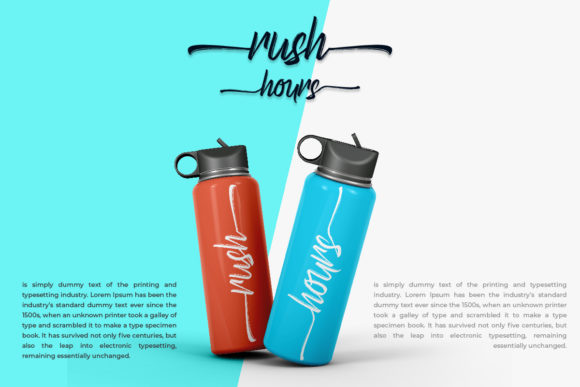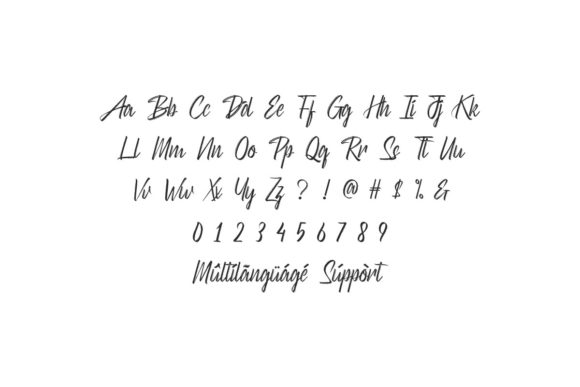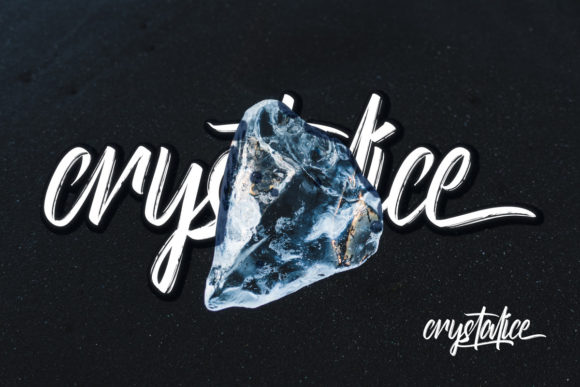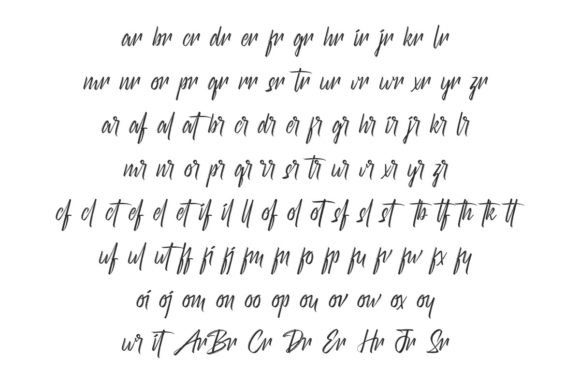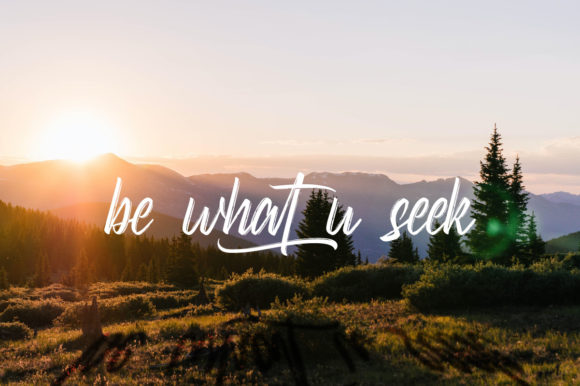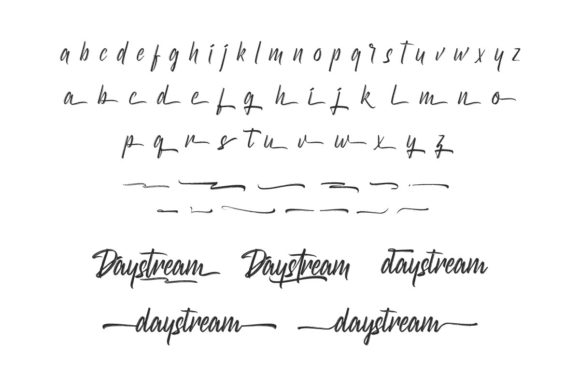
The Elegant Charm of Daystream Font: A Designer’s Delight
Have you ever been in the middle of a design project, and suddenly, you’re stuck on finding the perfect font? I recall a particularly frustrating experience when I was working on a wedding invitation design. My client wanted an elegant, yet modern script font that would make their special day feel truly unforgettable. After hours of scrolling through font libraries, I stumbled upon Daystream Font, and it was love at first sight! 💕
A Balanced Beauty: What I Love About Daystream Font
Daystream Font is an elegant script font that exudes a contemporary atmosphere while maintaining impeccable form, inspired by timeless classic calligraphy. Here’s what I love about it:
- ✨ Balanced and varied strokes: Not too thin and not too thick, Daystream Font strikes the perfect balance, making it easy to read and visually appealing.
- ✅ Impeccable form: The font’s classic calligraphy inspiration shines through in its elegant letterforms.
- 🌈 Versatile and adaptable: Daystream Font can be used for a wide range of projects, from wedding invitations to branding and packaging.
Honest Review: A Few Quirks to Consider
While Daystream Font is a stunning addition to any design project, there are a few quirks to keep in mind:
- 🤔 Limited use in small sizes: Due to its elegant and cursive nature, Daystream Font may not be the best choice for very small font sizes or body text.
- ⚠️ Some letter combinations may require manual kerning: As with any script font, some letter combinations may require manual kerning to achieve optimal results.
- Experiment with OpenType features like ligatures and stylistic alternates to add visual interest to your text.
The Story Behind Daystream Font
Daystream Font was designed by a team of typographers who aimed to create a modern script font that would pay homage to classic calligraphy. Inspired by the flowing lines and elegant letterforms of traditional calligraphy, they crafted a font that would be both beautiful and functional. With its balanced strokes and impeccable form, Daystream Font has become a popular choice among designers and crafters.
| Font Name | Daystream Font |
| What is Daystream Font best suited for? | Daystream Font is ideal for designs that require an elegant, modern script font, such as wedding invitations, branding, packaging, and luxury materials. |
| Does Daystream Font support OpenType features? | Yes, Daystream Font supports OpenType features like ligatures, stylistic alternates, and glyphs, making it a versatile choice for designers. |